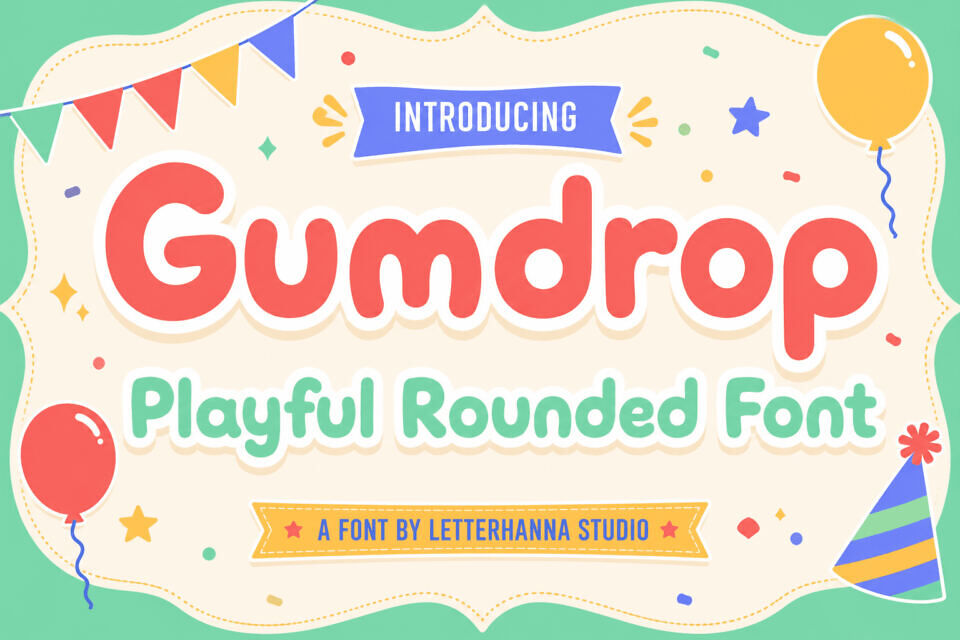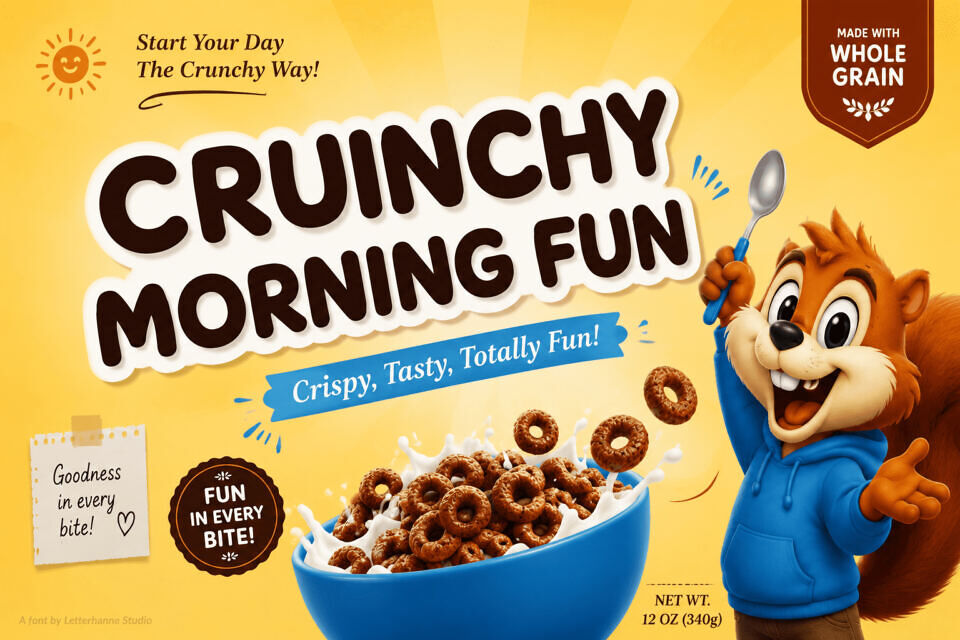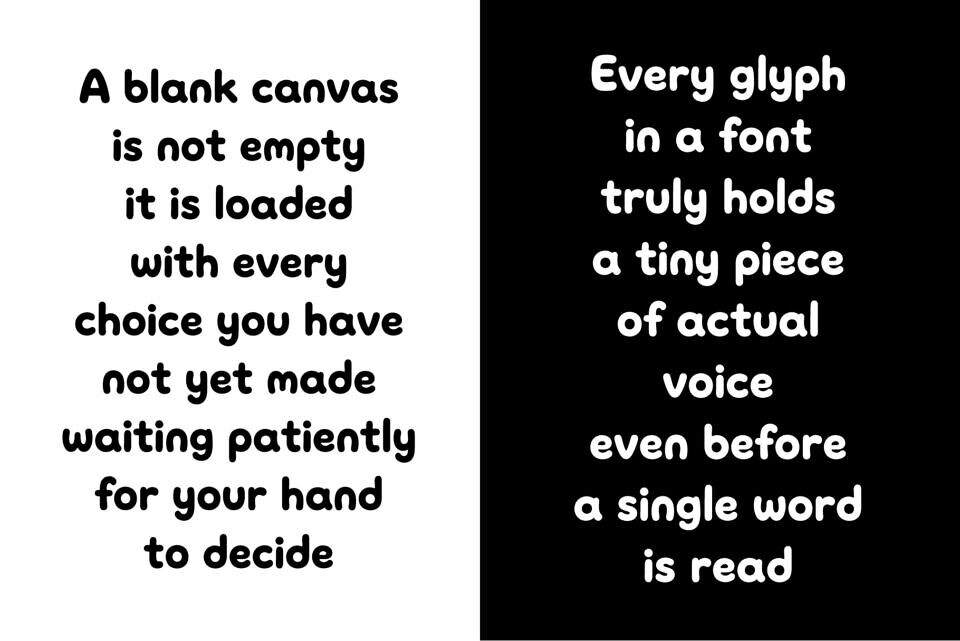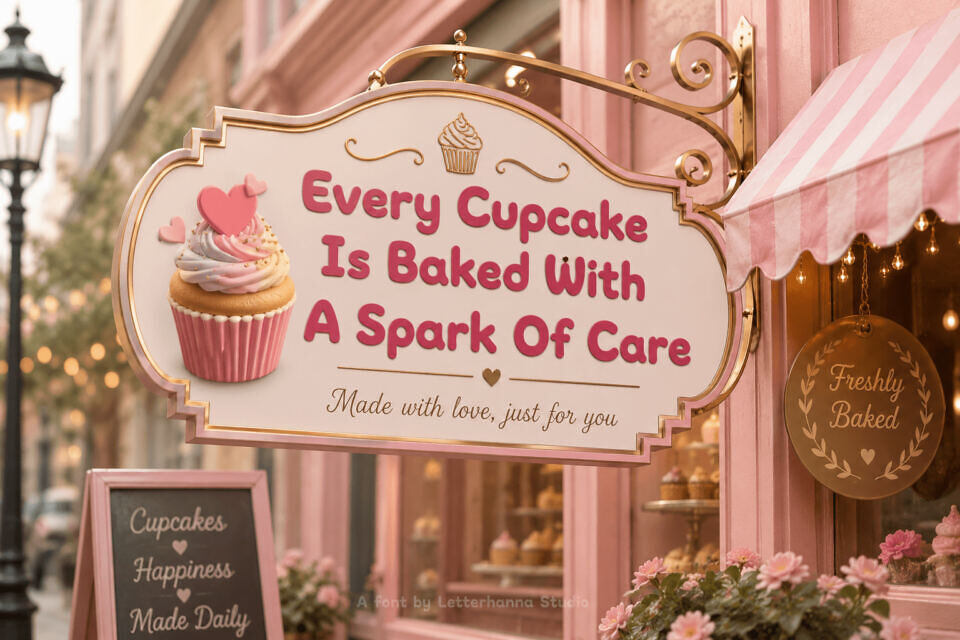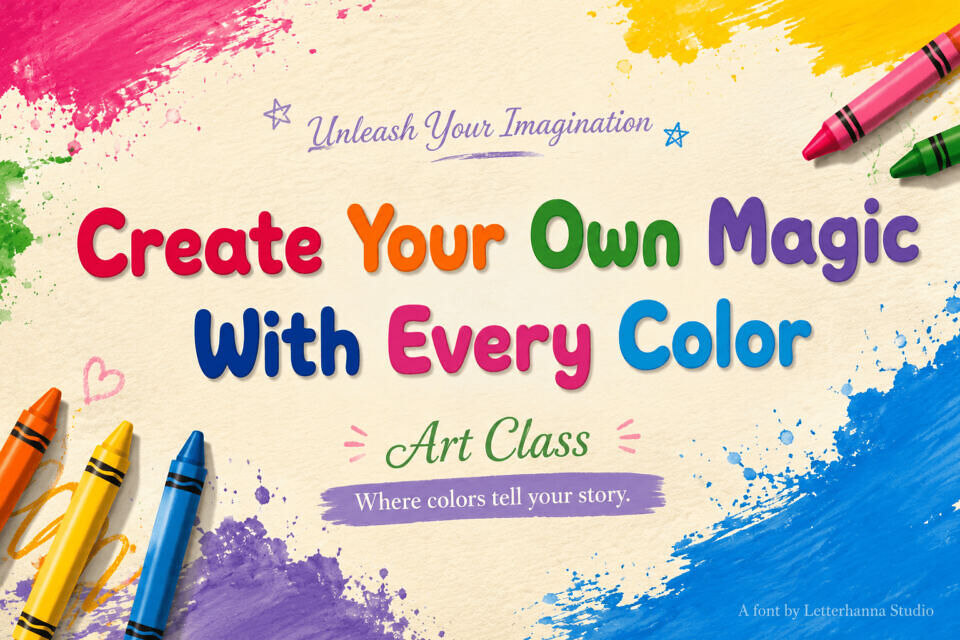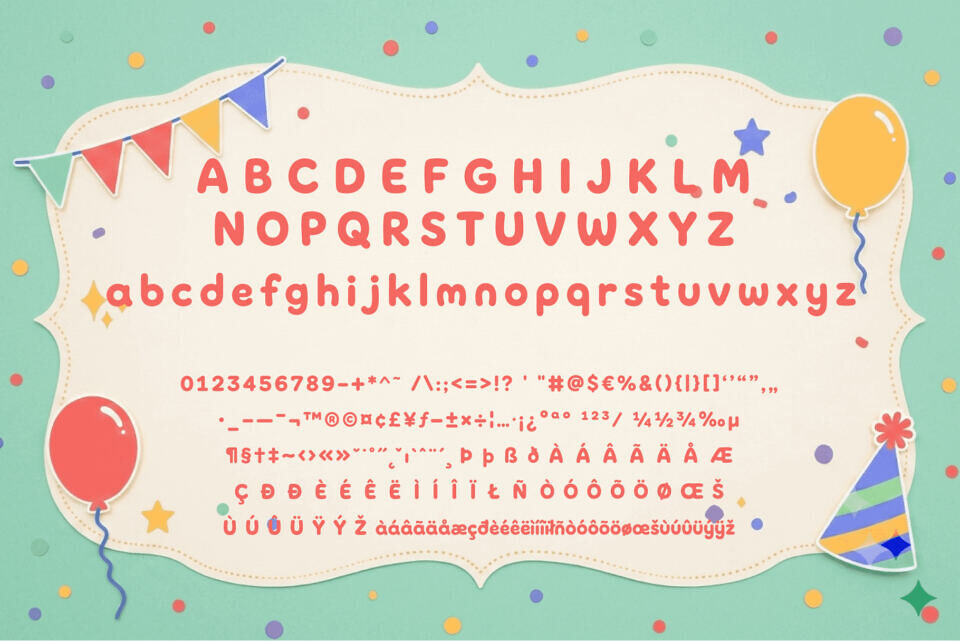
Gumdrop Font
Gumdrop is a playful font with a sugary charm. Its thick, rounded strokes and soft curves evoke a sense of handmade joy. The font’s friendly feel is enhanced by small details like dotted i’s and j’s with rounded bubbles.
It’s perfect for designs that need a cheerful, sweet touch, such as kids’ birthday cards, candy labels, or children’s apps. Gumdrop’s warmth and playfulness make it a great fit for any project that requires a lighthearted and fun vibe.